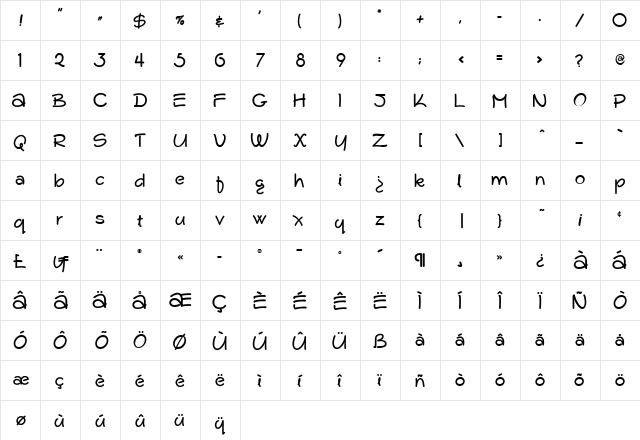
Dallas Plain
Design Context for Dallas Typeface
Dallas takes a measured approach to typography — its balanced proportions and neutral character make it a reliable workhorse for both digital and print work.